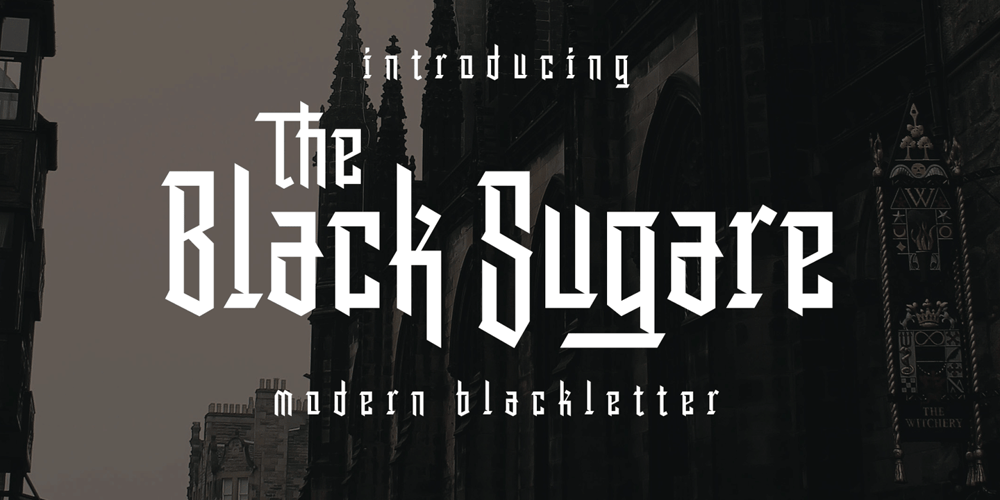
The Black Sugare
The Black Sugare font
The Black Sugare Font Family was designed by Ahmad Ramzi Fahruddin and published by Arterfak Project. The Black Sugare contains 1 styles and family package options. Inspired by minimalism and black letter, introducing “The Black Sugare”, the combination of a gothic era and geometric shapes. The more simple black letter display font that is suitable for any style, especially modern style. The flow of the letter shapes gives geometric looks also the stem (and the strokes) and is easy to combine once it writes in 2 lines or more. With fewer spurs The Black Sugare is suitable for classy design, and looks minimalist, elegant, and quietly awesome in your design. This font also good to use in body text. There are OpenType features to give more alternative looks.